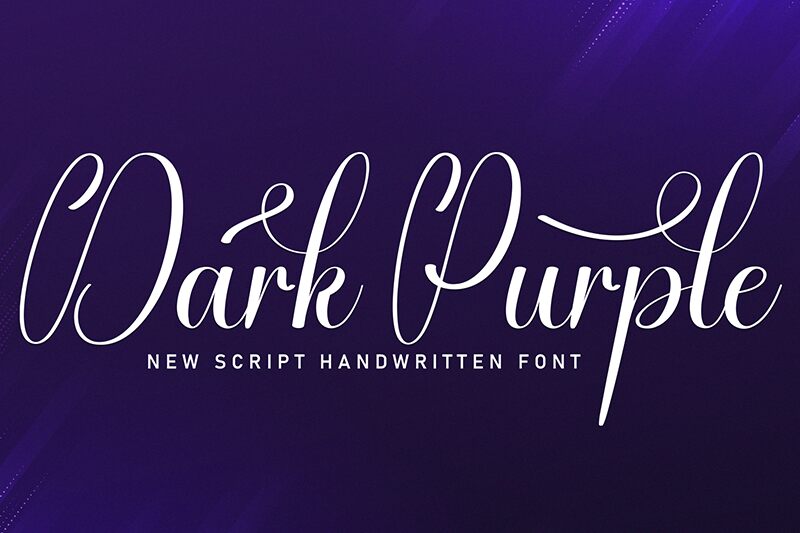
Dark Purple font by Andi Moz is a free calligraphy font that exudes an elegant and sophisticated charm. Its flowing and expressive design makes it a refined choice for decorative and contemporary applications. This font embodies a graceful and delicate aesthetic, perfect for those who seek a touch of luxury in their design projects.
Ideal for invitations, branding projects, magazines, and packaging, Dark Purple can elevate the appearance of any high-end product. It seamlessly fits into concepts ranging from luxury goods and apparel to advertisements, posters, and letters. Its sophisticated look also makes it suitable for logos, labels, and web layouts.